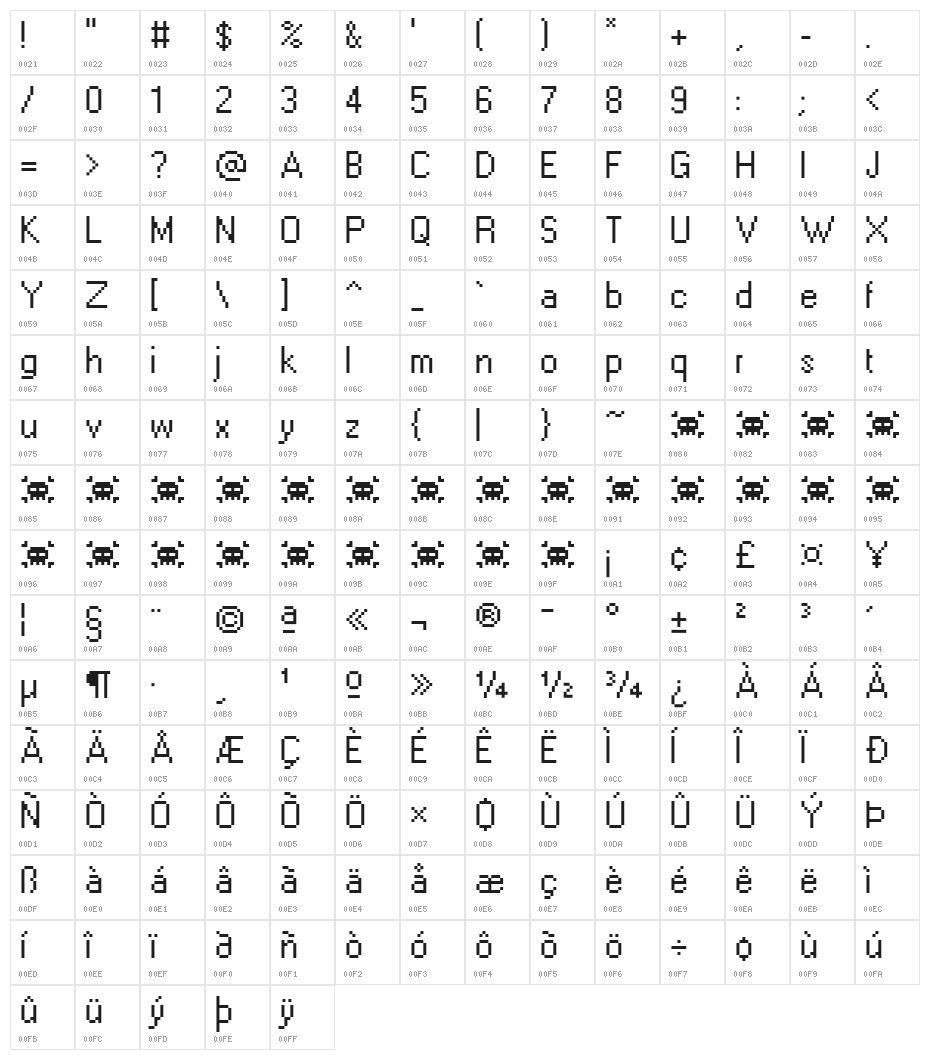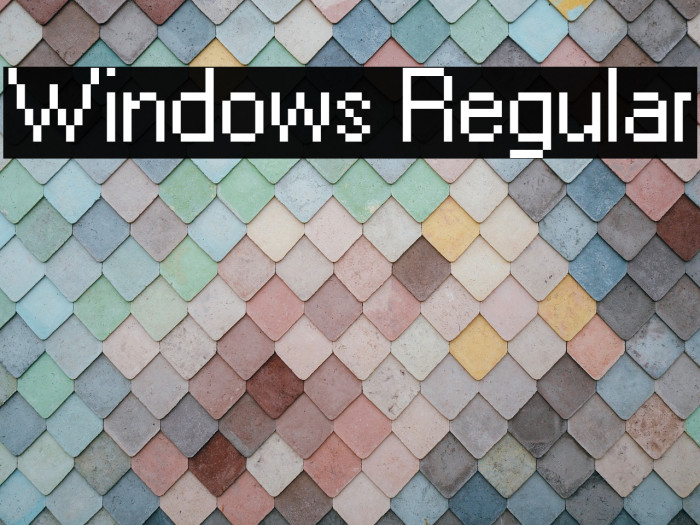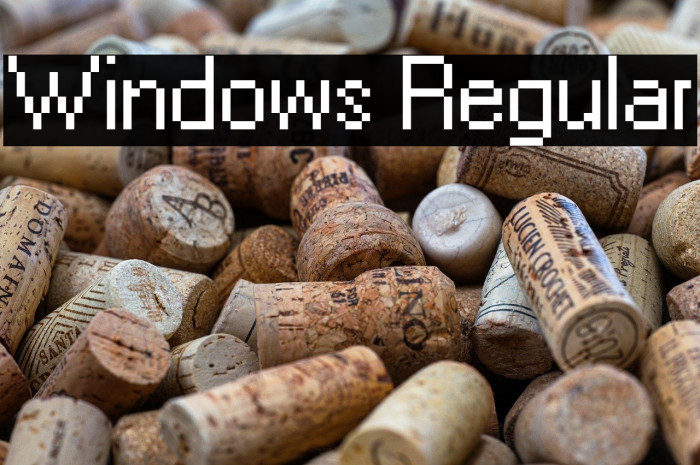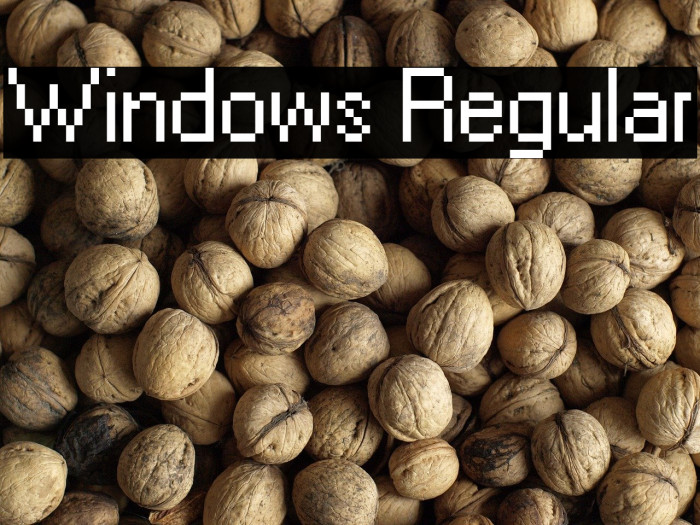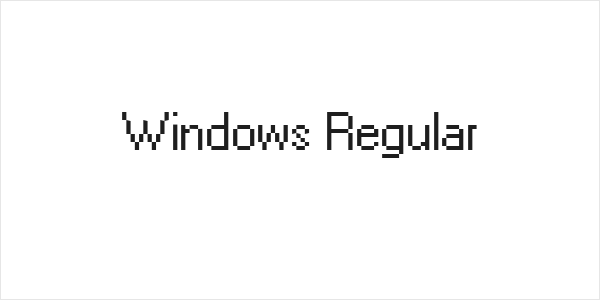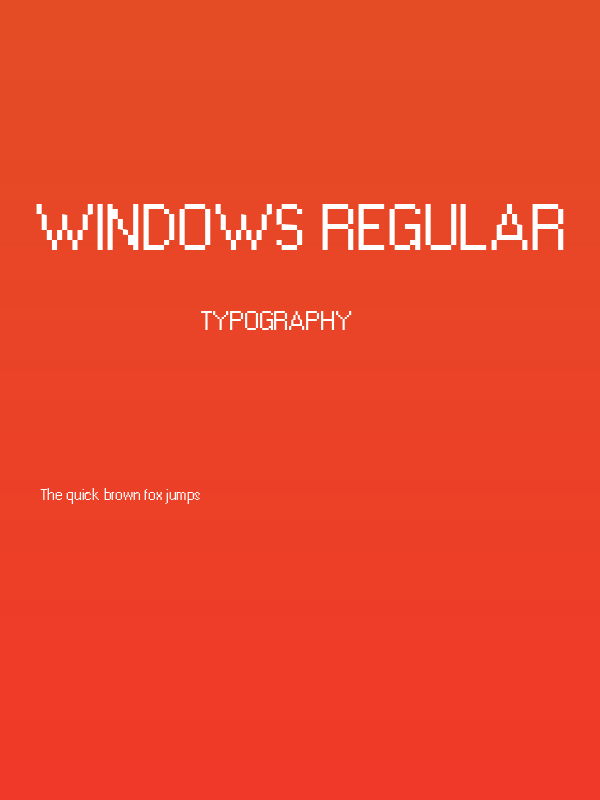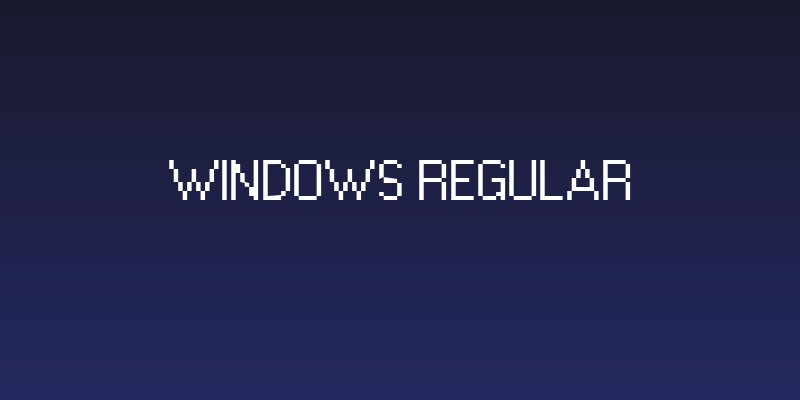
Windows Regular Font
Windows Regular Description
This font features a pixelated, blocky design reminiscent of early digital displays and retro video games. Each character is constructed with a grid-like precision, giving it a distinctly digital and mechanical appearance. The uppercase and lowercase letters maintain a consistent height, contributing to a uniform look. The numerals and special characters follow the same pixelated style, ensuring cohesion across all glyphs. This font's design is straightforward, with no curves or embellishments, emphasizing clarity and readability in a digital context.
| Overall Style | Retro, Digital |
| Use Case | Logos, Digital displays, Video games |
| Proposed Projects | Ideal for retro-themed designs, video game graphics, digital art projects, and any creative work that requires a nostalgic digital aesthetic. |